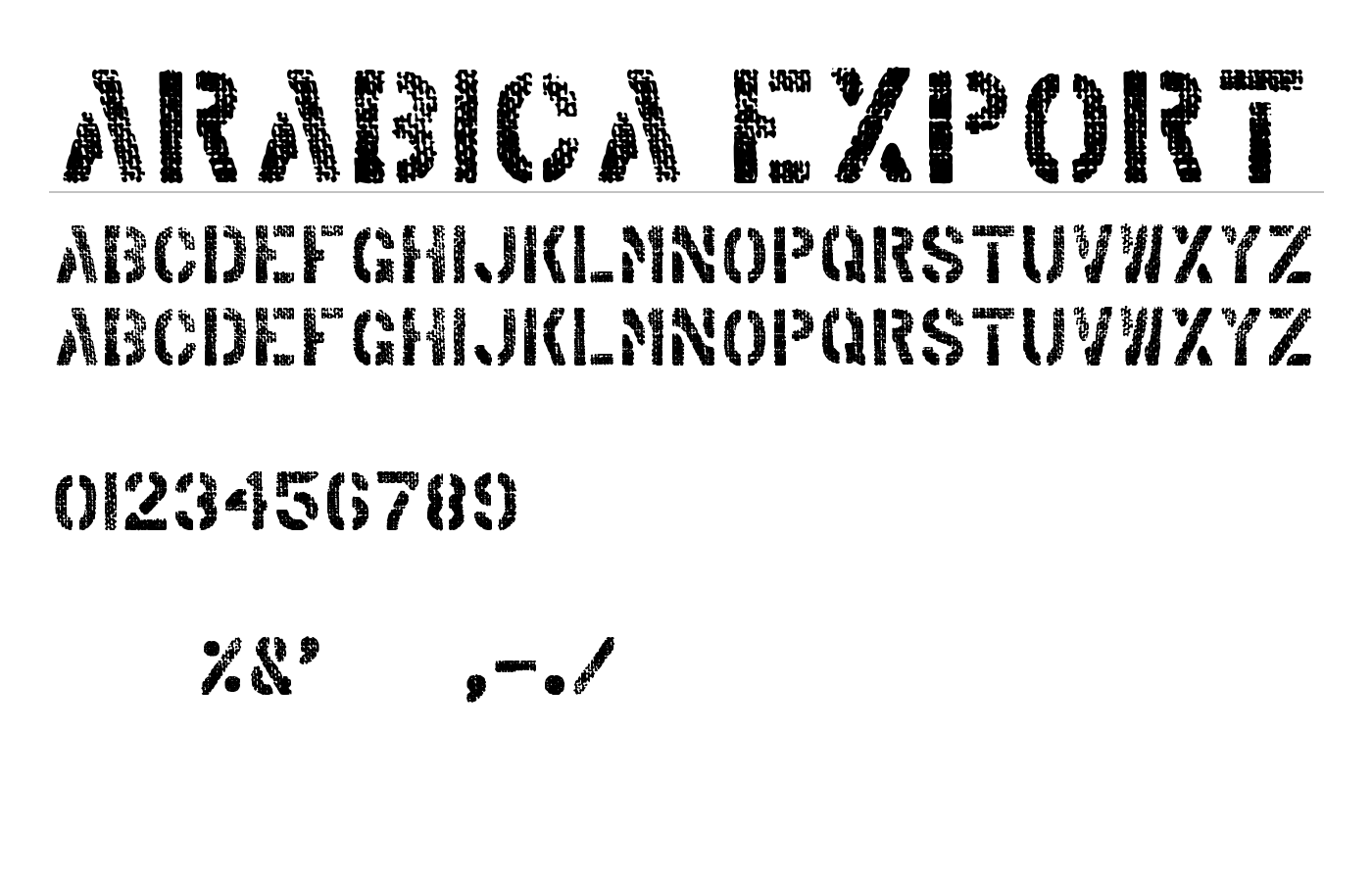
Arabica Export is a bold, condensed stencil sans serif font characterized by its heavy weight and textured, distressed appearance that evokes a rugged, industrial feel. With its uppercase-only style and blocky letterforms featuring strong vertical strokes and distinct cutouts, it communicates a vintage, utilitarian vibe perfect for packaging, posters, and branding that needs a tough, weathered look. This font works well in display settings where an eye-catching, gritty effect is desired, adding personality and a sense of authenticity.
Arabica Export Font
About Arabica Export Font